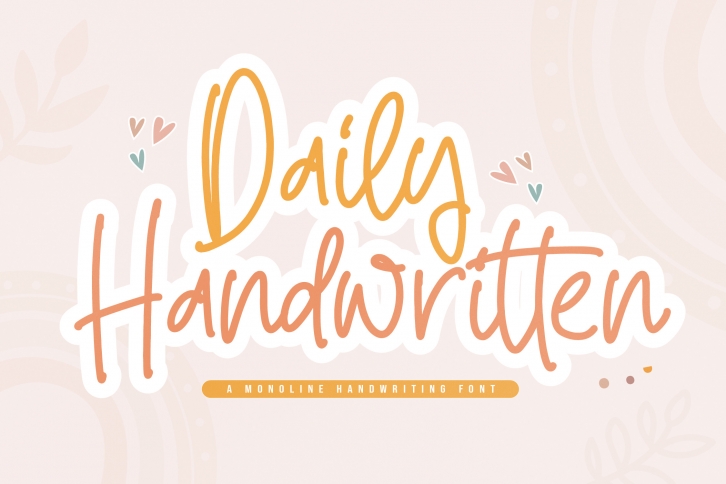
Daily is a quirky, thin lettered and casual handwritten font. This font is PUA encoded which means you can access all of the glyphs and swashes with ease.